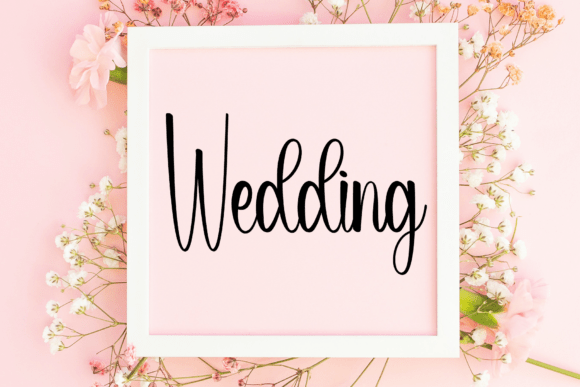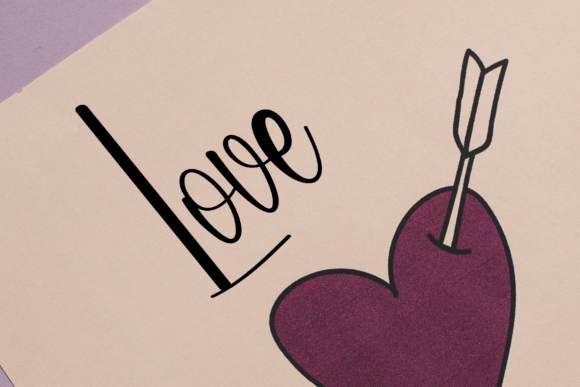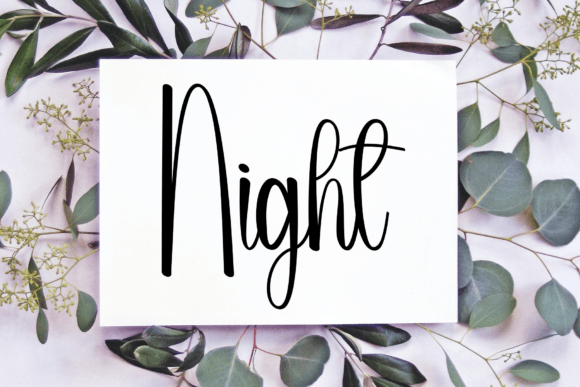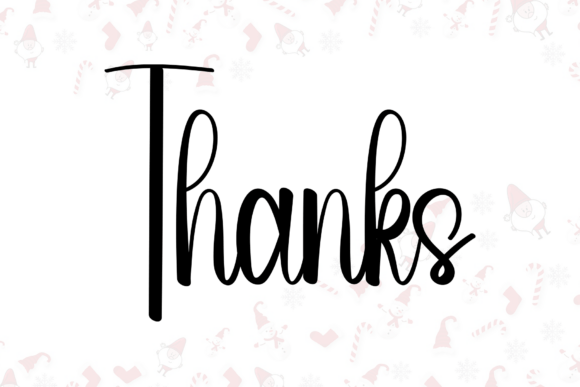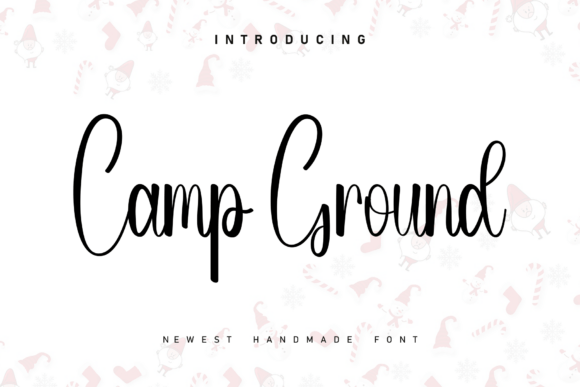
Camp Ground Font: A Sweet and Beautiful Handwritten Font for Your Design Projects
Are you looking for a font that can add a cozy and personal touch to your design projects? Look no further than Camp Ground Font! This sweet and beautiful handwritten font is perfect for designers, crafters, and anyone who wants to create unique and eye-catching designs. In this article, we’ll take a closer look at Camp Ground Font, its features, and how you can use it to elevate your design projects.
What is Camp Ground Font?
Camp Ground Font is a handwritten font that features characters that dance along the baseline, giving it a playful and whimsical feel. This font is perfect for creating designs that require a personal and cozy touch, such as invitations, greeting cards, and social media graphics. With its beautiful and elegant handwriting style, Camp Ground Font is sure to add a touch of warmth and personality to any design project.
Key Features of Camp Ground Font
- Handwritten style: Camp Ground Font has a beautiful handwritten style that gives it a personal and cozy feel.
- Characters that dance along the baseline: The characters in Camp Ground Font are designed to dance along the baseline, giving it a playful and whimsical feel.
- Perfect for designs that require a personal touch: Camp Ground Font is perfect for creating designs that require a personal and cozy touch, such as invitations, greeting cards, and social media graphics.
- Elegant and beautiful: Camp Ground Font has an elegant and beautiful handwriting style that is sure to add a touch of warmth and personality to any design project.
How to Use Camp Ground Font in Your Design Projects
Camp Ground Font is a versatile font that can be used in a variety of design projects. Here are some ideas on how to use Camp Ground Font:
- Invitations: Use Camp Ground Font to create beautiful and personalized invitations for weddings, birthday parties, and other special occasions.
- Greeting cards: Create unique and eye-catching greeting cards using Camp Ground Font.
- Social media graphics: Use Camp Ground Font to create social media graphics that require a personal and cozy touch.
- Branding and packaging: Use Camp Ground Font to create branding and packaging designs that require a personal and elegant touch.
Why Choose Camp Ground Font?
There are many reasons why you should choose Camp Ground Font for your design projects. Here are some of the benefits of using Camp Ground Font:
- Unique and eye-catching: Camp Ground Font is a unique and eye-catching font that is sure to make your designs stand out.
- Personal and cozy: Camp Ground Font has a personal and cozy feel that is perfect for designs that require a warm and inviting touch.
- Elegant and beautiful: Camp Ground Font has an elegant and beautiful handwriting style that is sure to add a touch of sophistication to any design project.
- Versatile: Camp Ground Font is a versatile font that can be used in a variety of design projects.
In conclusion, Camp Ground Font is a sweet and beautiful handwritten font that is perfect for designers, crafters, and anyone who wants to create unique and eye-catching designs. With its playful and whimsical feel, elegant and beautiful handwriting style, and versatility, Camp Ground Font is sure to add a cozy and personal touch to any design project. Whether you’re creating invitations, greeting cards, social media graphics, or branding and packaging designs, Camp Ground Font is a great choice.